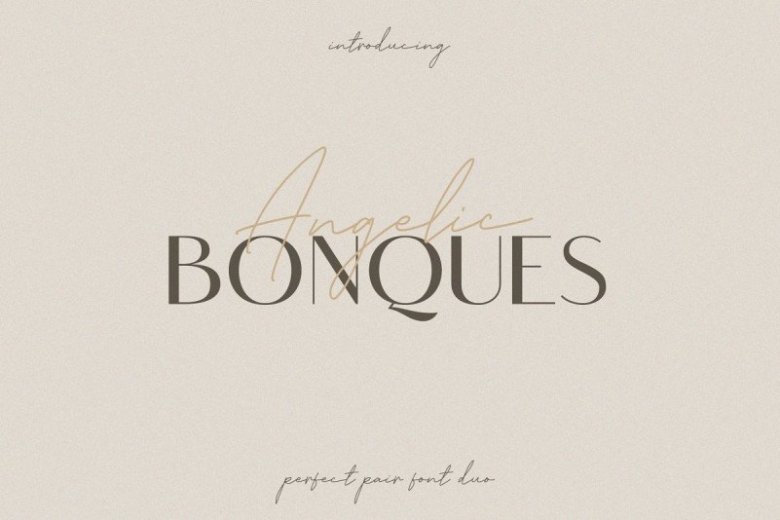
Angelic Bonques Font Duo
Hello friend. This is a beautiful font duo that combines two trends into one gorgeous package. The fonts were designed to look perfect when used together. It’s a perfect relationship balancing dynamic energy and beautiful order. Introducing Angelic Bonques Script & Sans. Perfect Pair Font Duo is a combination of an elegant sans serif font & beauty handwritten script font based on the expression of real handwriting. Angelic Bonques – Perfect Pair Font Duo will work perfectly for fashion, e-commerce brands, trend blogs, wedding boutiques or any business that wants to appear upscale and chic.